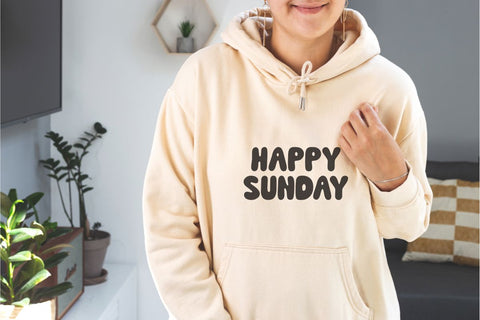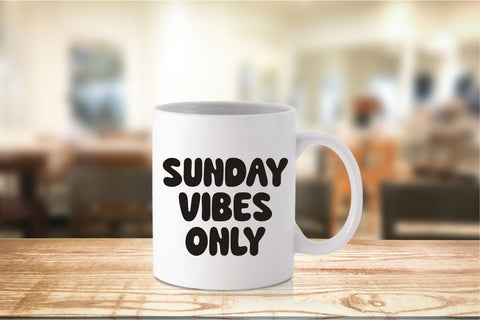
Smile Sunday - Cheerlful Retro Font
Smile Sunday is a cheerful and playful display font that radiates warmth and an irresistibly cute charm. Its rounded, slightly bouncy letterforms with a soft, inviting aesthetic create a truly delightful and eye-catching presence. This font is perfect for bringing a dose of sunshine and happiness to a wide variety of creative projects. Imagine Smile Sunday enhancing vibrant stickers, joyful planner elements, happy t-shirt designs, sweet product labels, sunny invitations, personalized tumblers, and a plethora of other delightful crafts. Its distinctively friendly and approachable style makes it exceptionally well-suited for products targeting end-users who enjoy crafting with tools like Cricut and for sublimation projects, as well as for creating appealing stickers and planner elements with a truly heartwarming flair. Smile Sunday's unique and cheerful character will ensure your creations stand out and bring a big smile to everyone who sees them, making every design feel like a happy Sunday.